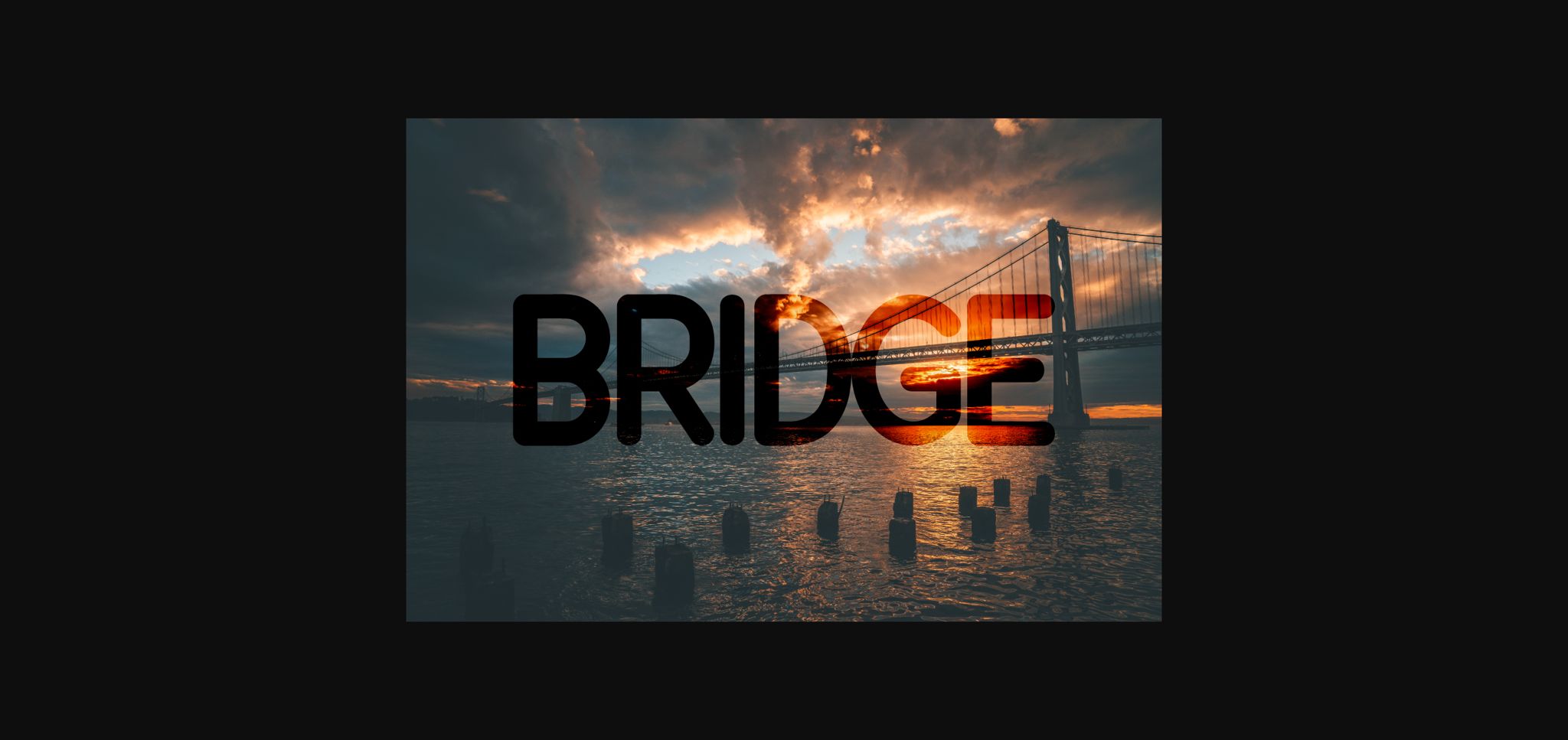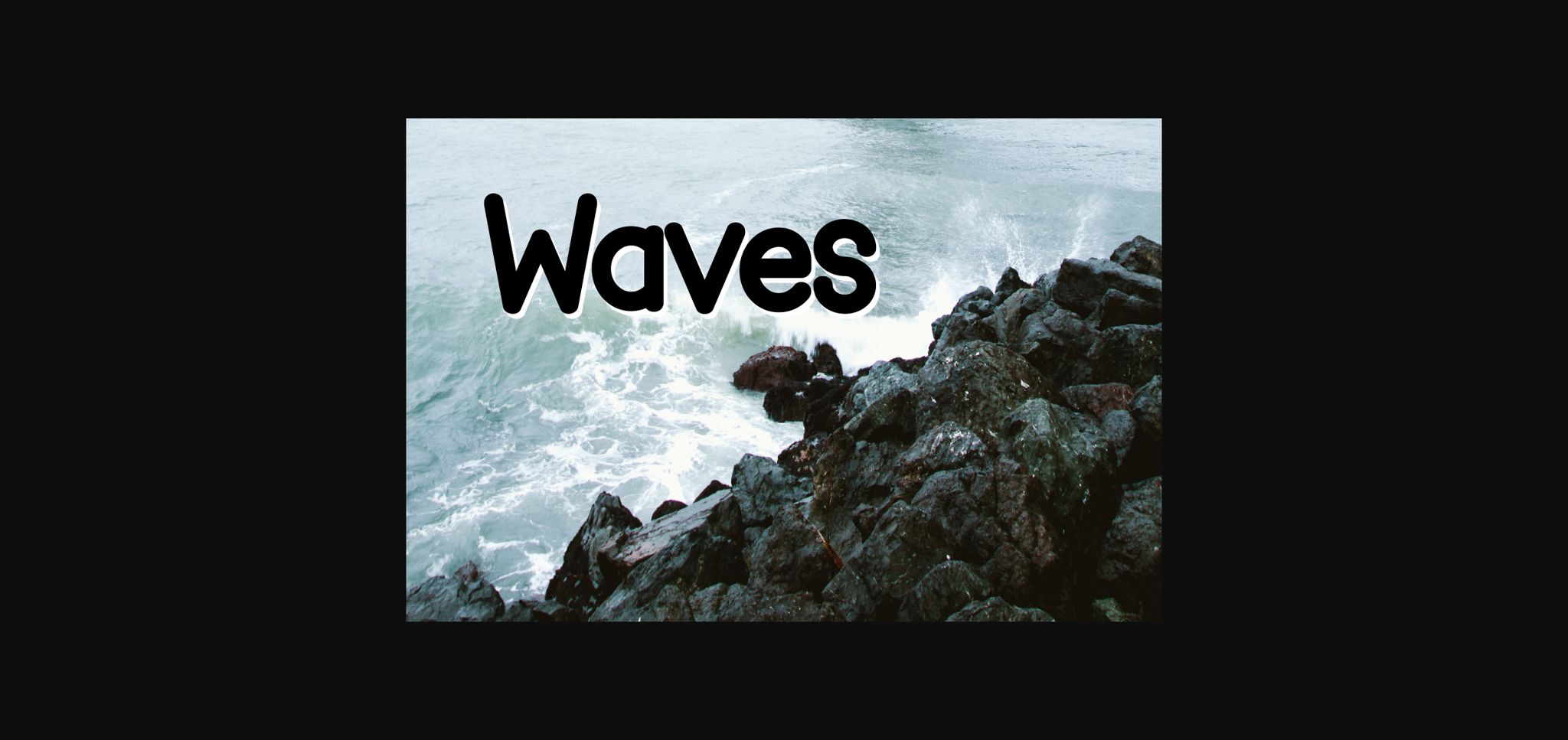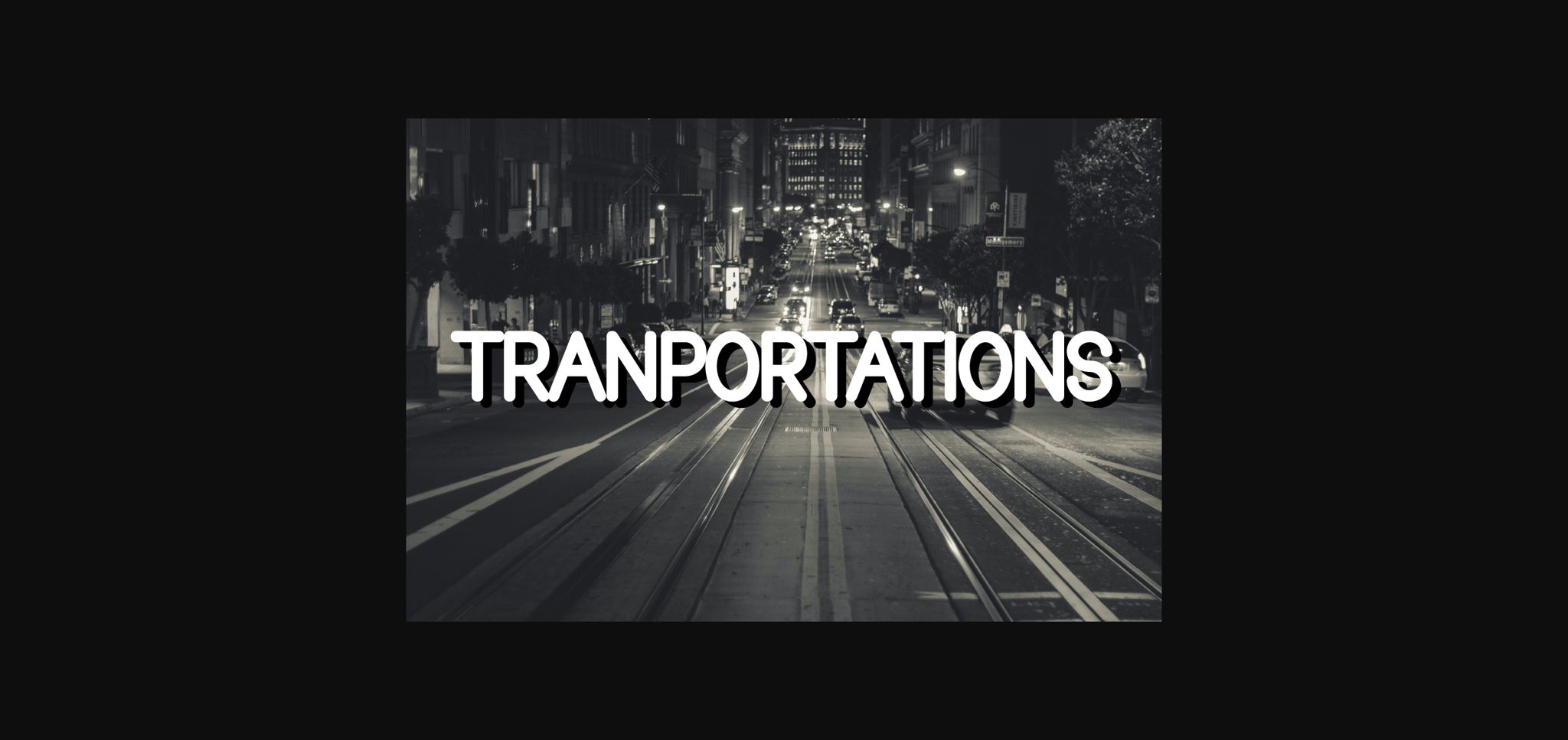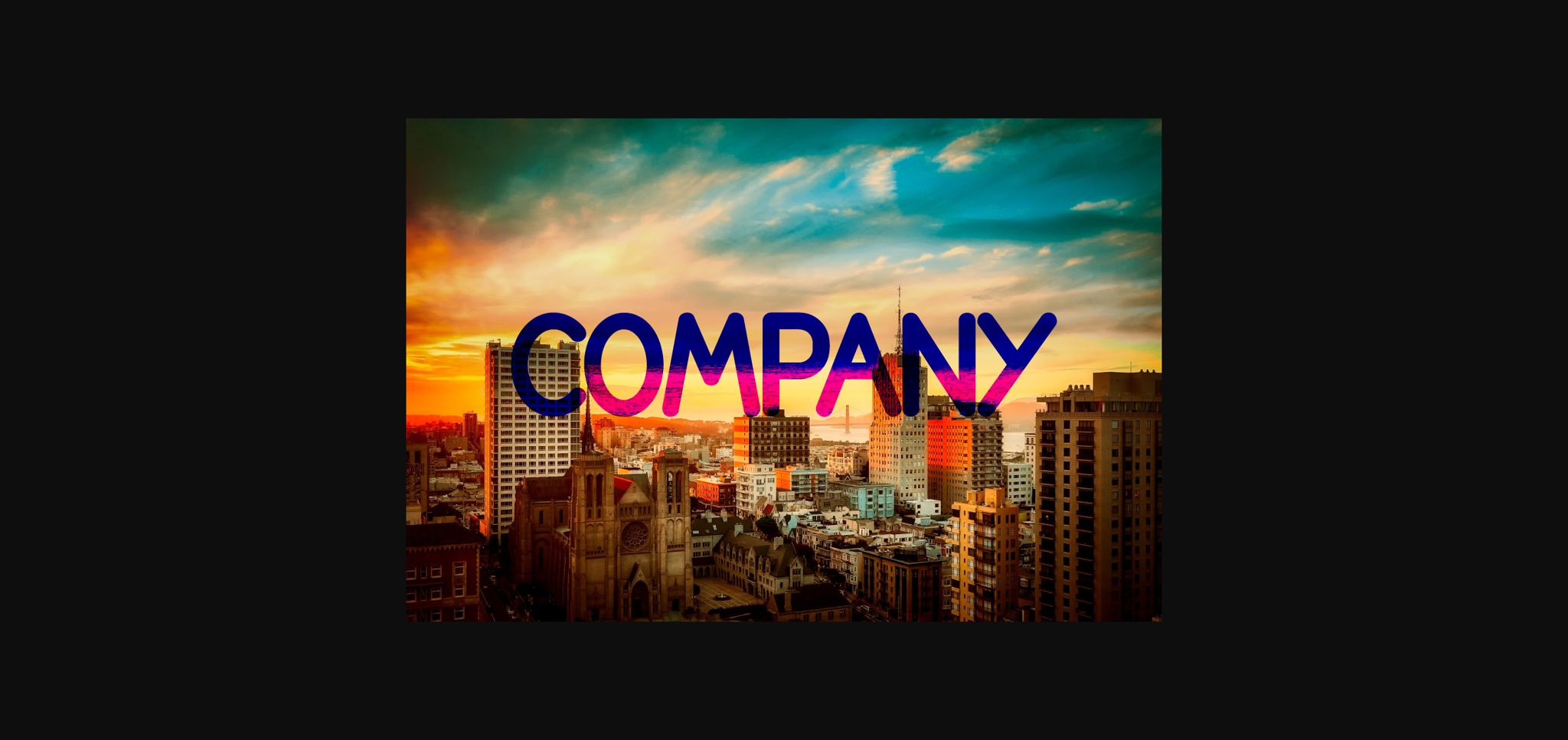
HomeSans Serif FontsBridge Font Sans Serif Fonts Bridge Font FacebookXPinterestWhatsApp 1 of 6 ... Bridge Font Poster 2... Bridge Font Poster 3... Bridge Font Poster 4... Bridge Font Poster 5... Bridge Font Poster 6... About Bridge Font Bridge is a simple and natural sans serif font. It is suitable for any branding, product packaging, invitation, quote, t-shirt, label, poster, logo that you wish to bring to life. DOWNLOAD NOW People also explored Black Angel Font Wedding Doodles Too Gans Headpieces Font Cendiland Font Doughty Hammer Bellan Font Love Story Font Billion Dreams Hashtag Font 359 0 TagsBridgeBridge Font Previous articleKortvell FontNext articlePorto Font LEAVE A REPLY Cancel reply Comment: Please enter your comment! Name:* Please enter your name here Email:* You have entered an incorrect email address! Please enter your email address here Website: Save my name, email, and website in this browser for the next time I comment. Personal Use Free Simple Personal Use Free Read more about this font Baveuse Personal Use Free Read more about this font BD Pipe Personal Use Free Read more about this font Ammanda Personal Use Free Read more about this font BLOG How to Install and Use Fonts on Windows, macOS, and Web Projects How to Install and Use Fonts on Windows, macOS, and Web Projects Fonts are a crucial part of design and branding. Whether you’re designing a... Modern Sans-Serif Fonts That Brands Love in 2025 To increase your work productivity, choose the most readable fonts. Fonts That Capture the Spirit of New York City